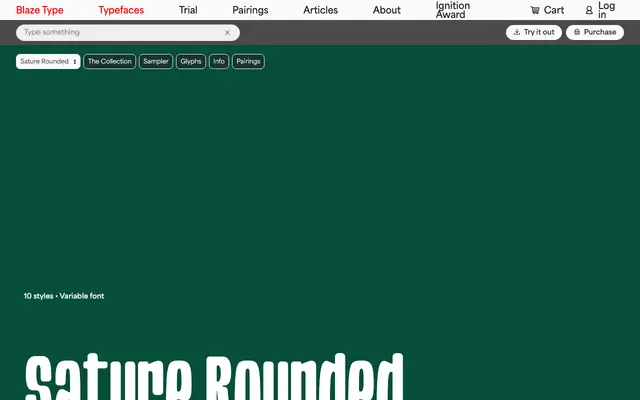
Sature Rounded
A rounded geometric sans by Nicolas Dupuis, derived from large-print paper lettering and built around horizontal expansion for high-impact display use.
Drawn initially from large-print lettering on paper, the family replaces all sharp angles with rounded terminals and uses horizontal processing to give each letter a full, felt-tip quality. Five weights from ExtraLight to ExtraBold, each with an italic, are available as static fonts and as a single variable file. The name references the French word for saturation, and the family is intended for stacked, layered layouts where weight contrasts produce an overlap or doubling effect.
Rounded terminals on a geometric sans structure, derived from large-print lettering drawn on paper; the absence of sharp angles and the horizontal expansion give it a distinctly soft geometric character.